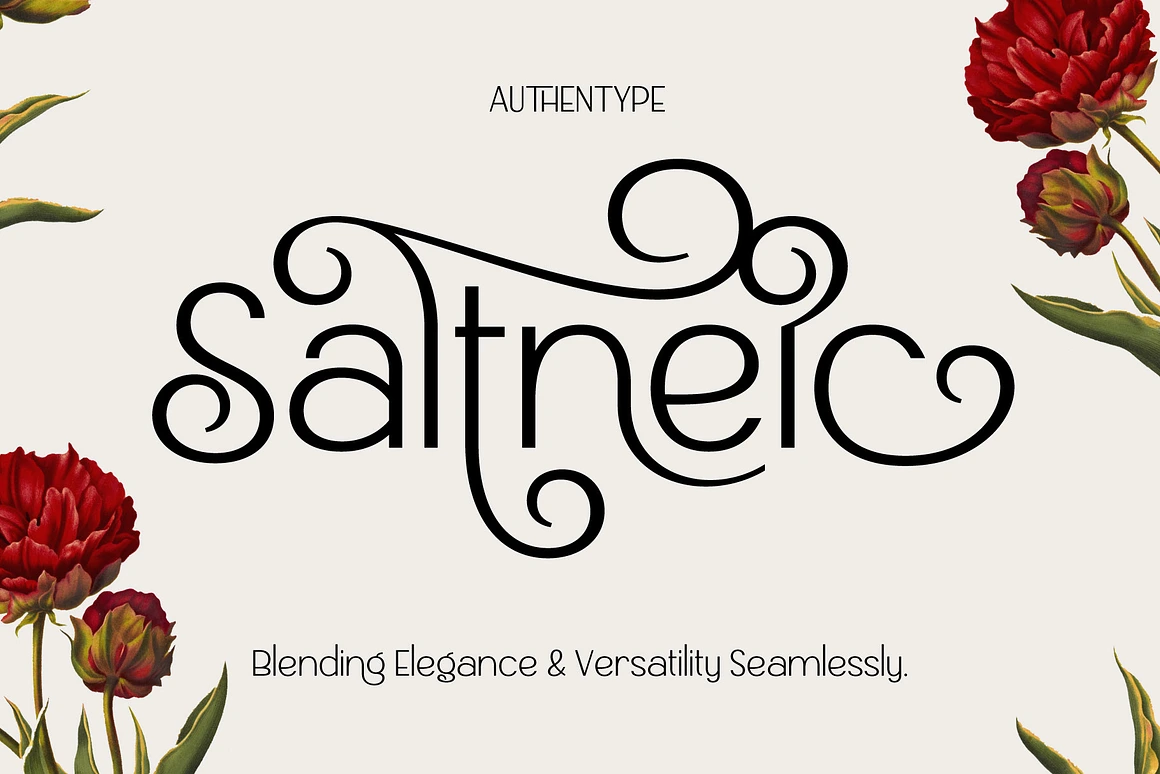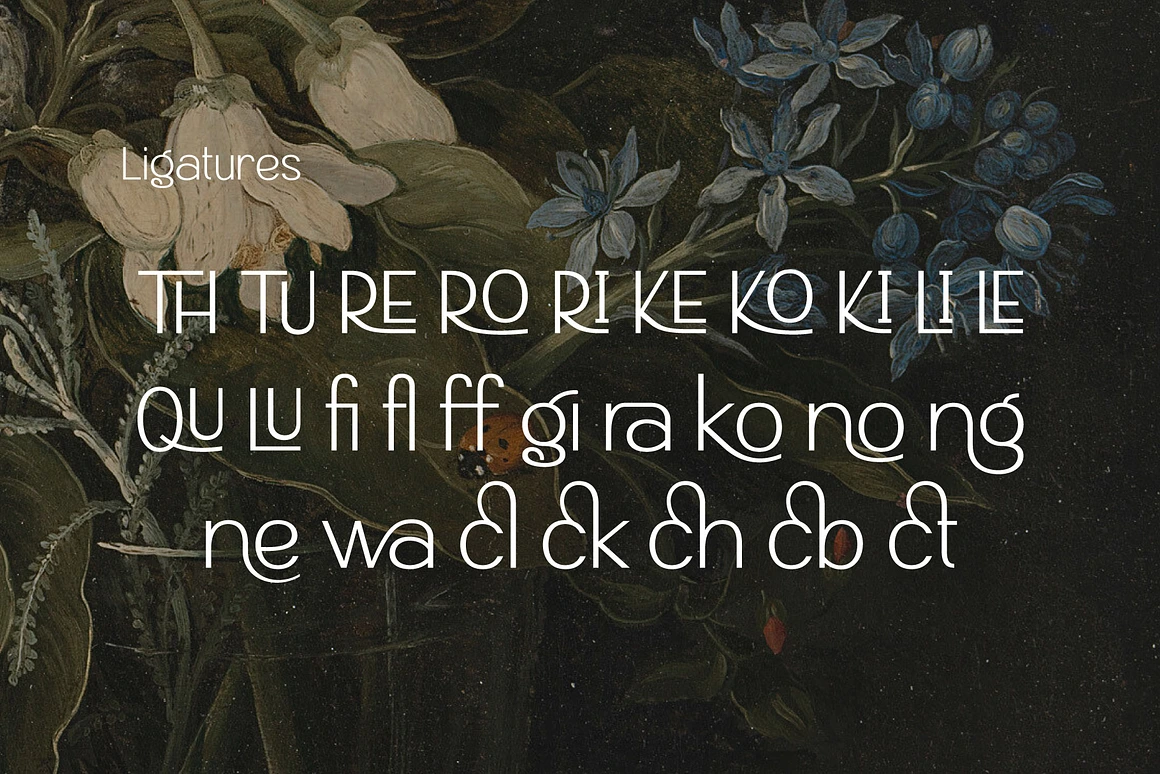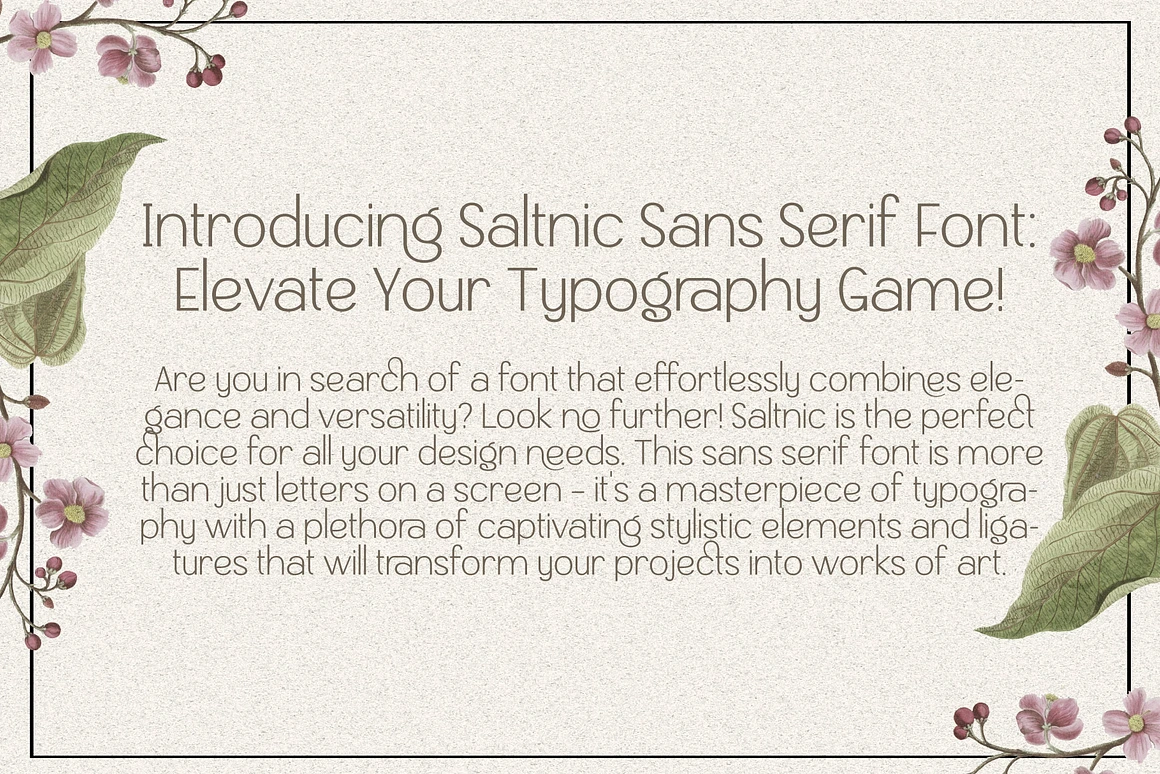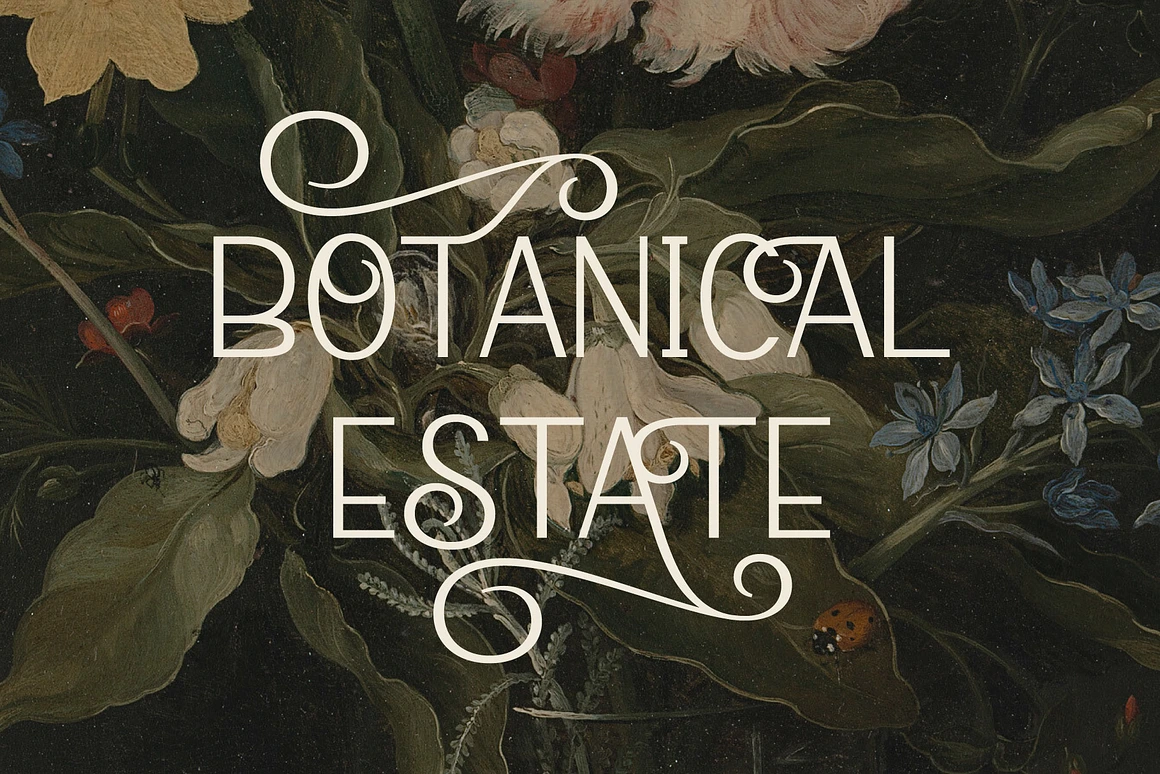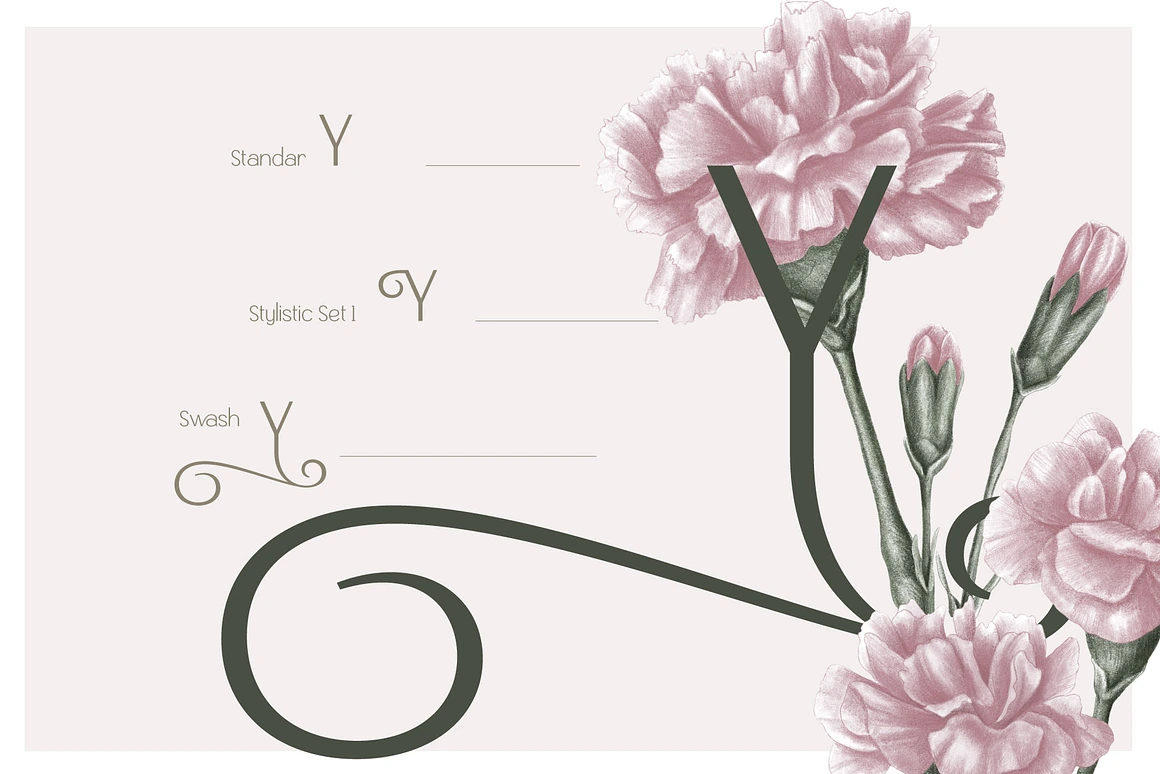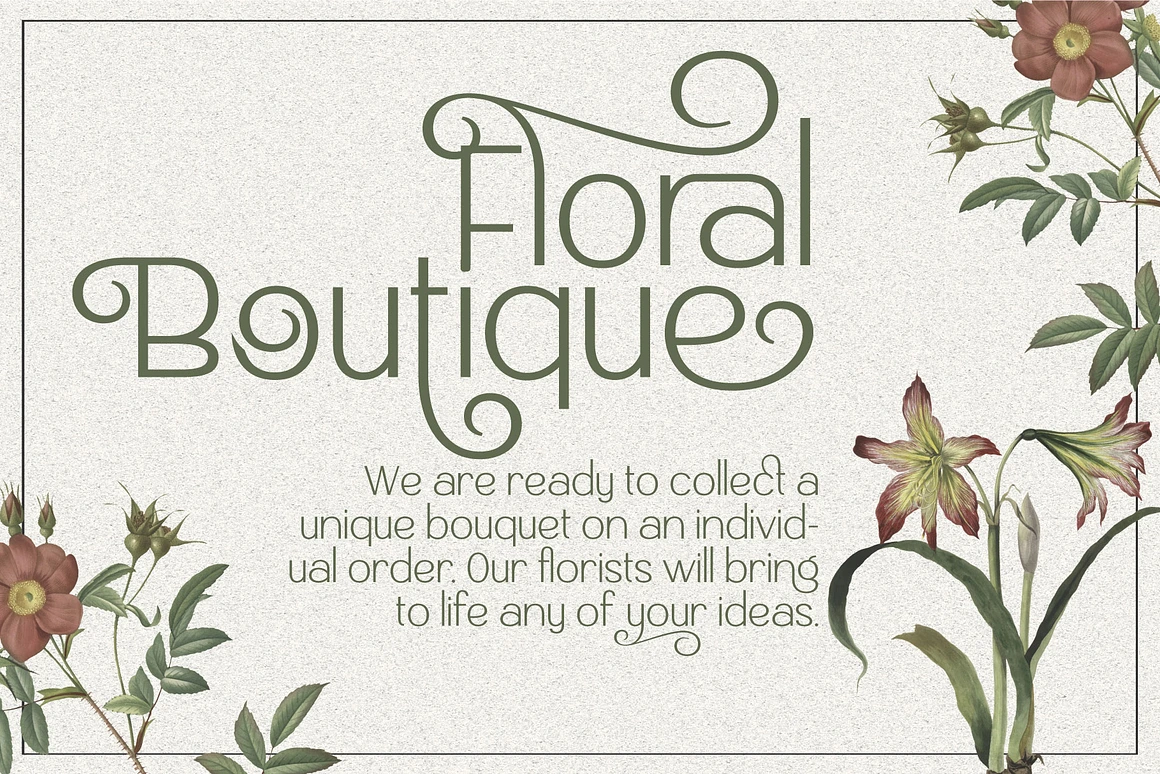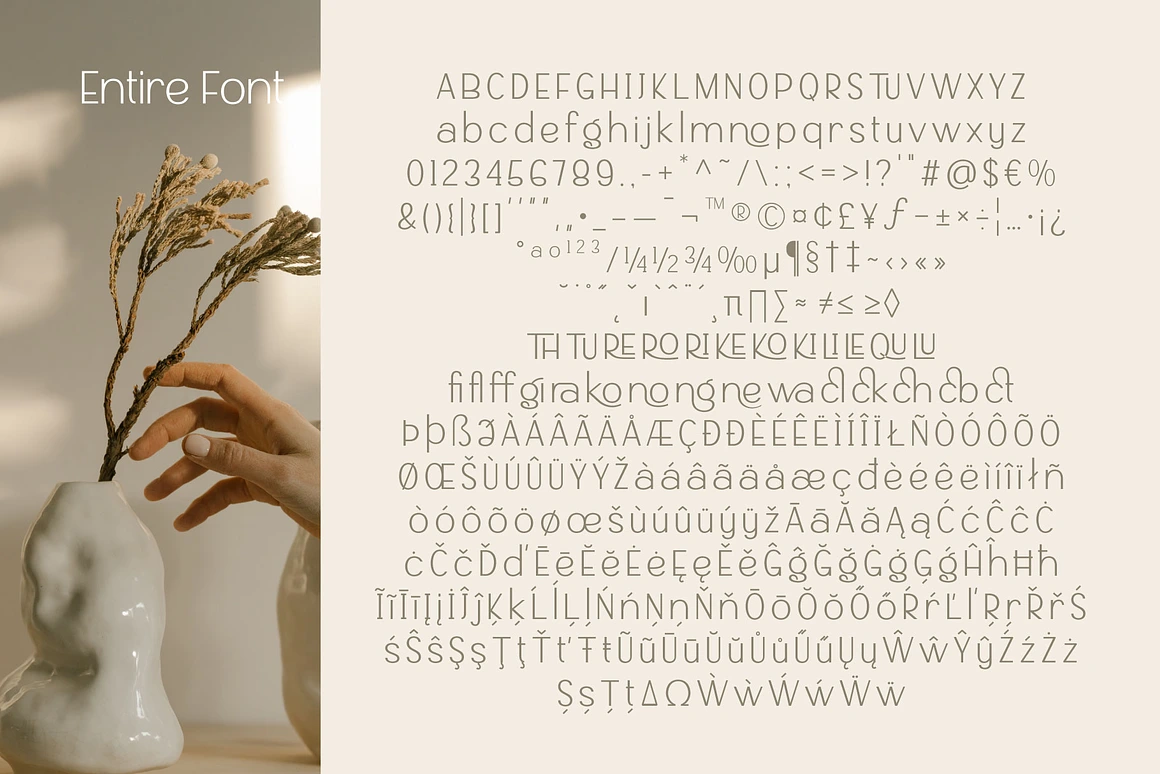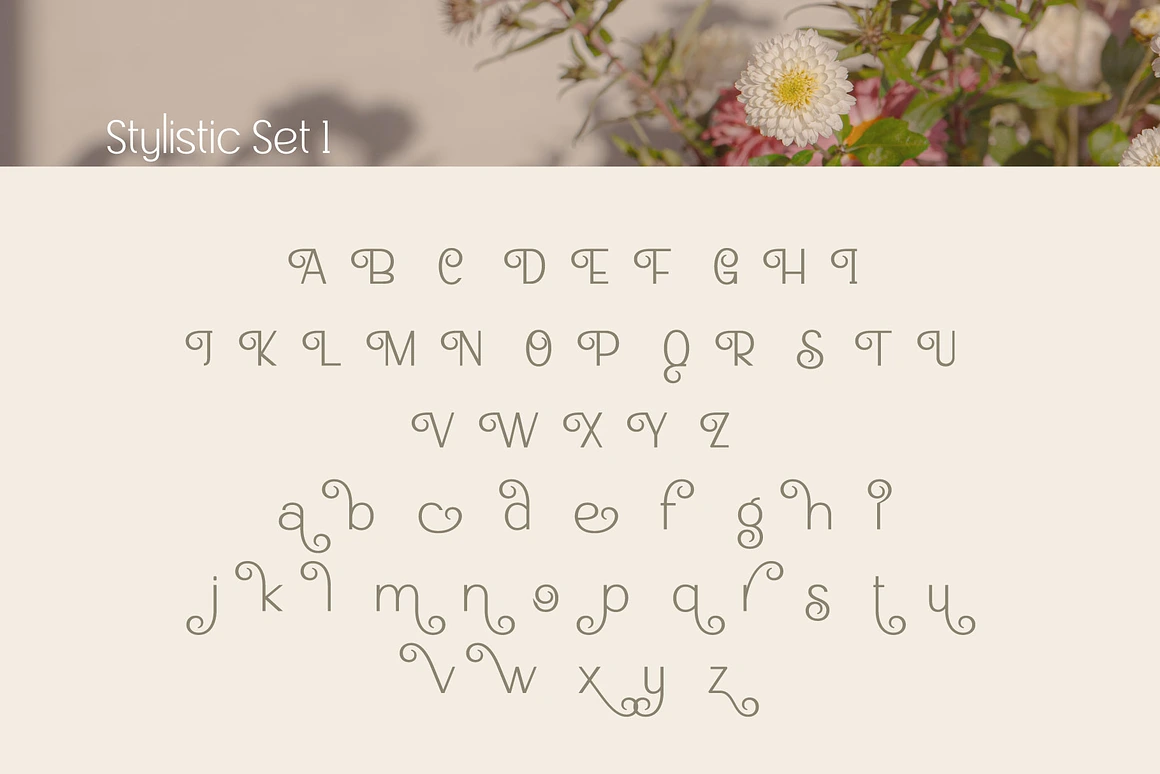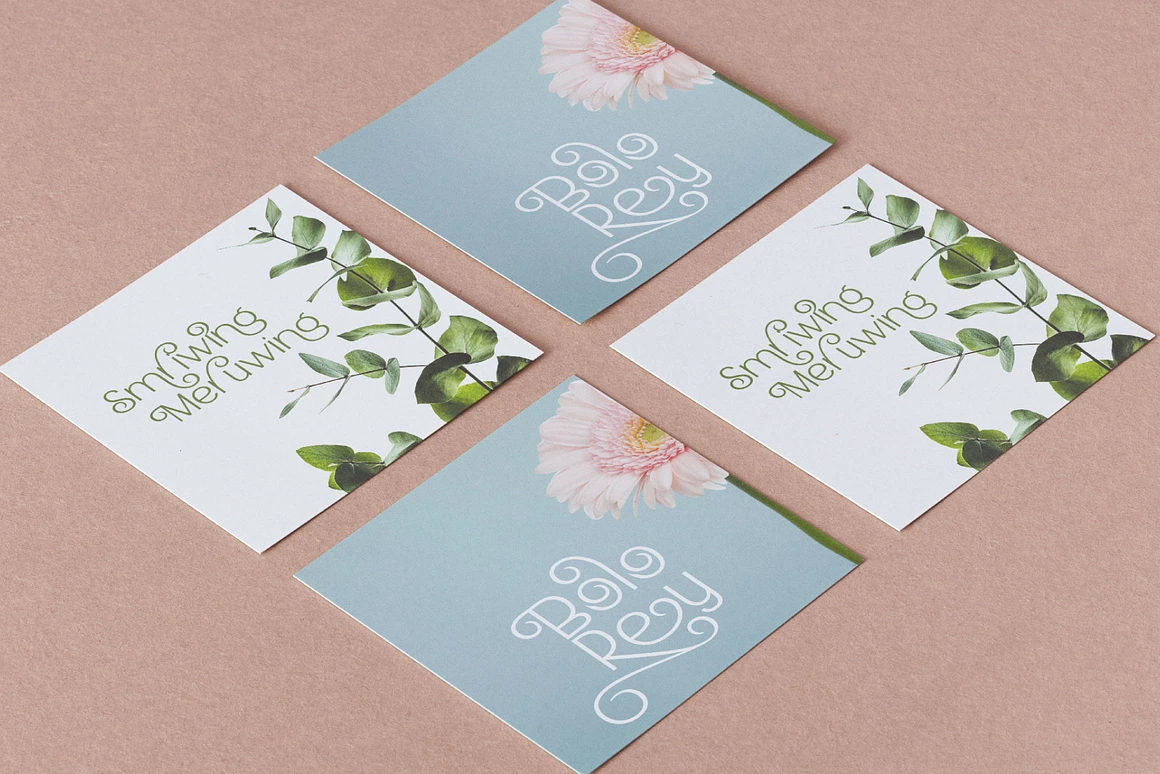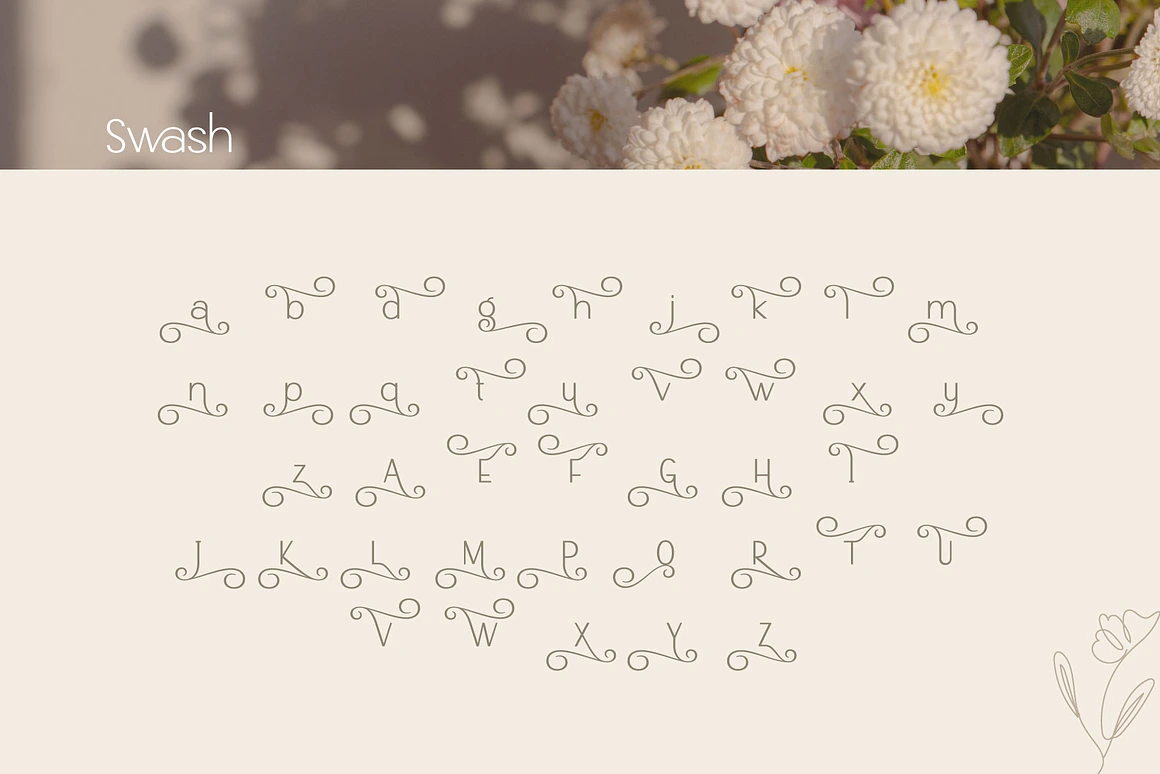
Saltneic – Modern Elegant Sans Serif Font
Saltneic
Blending Elegance & Versatility Seamlessly
Saltneic is a modern elegant sans serif font that beautifully balances elegance and simplicity. Featuring clean letterforms enhanced with graceful swashes and stylistic alternates, Saltneic delivers a sophisticated yet modern aesthetic.
Perfectly suited for designers seeking a refined, feminine, and high-end look in their projects.
Features
– Complete Character Set: Uppercase, lowercase, numerals, punctuation, and symbols.
– Stylistic Set 1: Alternative characters with elegant curves for a more decorative appearance.
– Swashes: Flowing ornamental strokes that add a luxurious touch.
– Ligatures: Special letter combinations that create smooth and natural text flow.
– Multilingual Support: Includes extended Latin characters for various languages.
– Optimized Spacing & Kerning: Carefully adjusted for flawless typography balance.
Perfect For
Saltneic works beautifully for a variety of design purposes, such as:
– Branding & Logo Design
– Wedding Invitations
– Product Packaging
– Magazine & Editorial Layouts
– Social Media Graphics & Quotes
– Posters, Signage, and Creative Projects